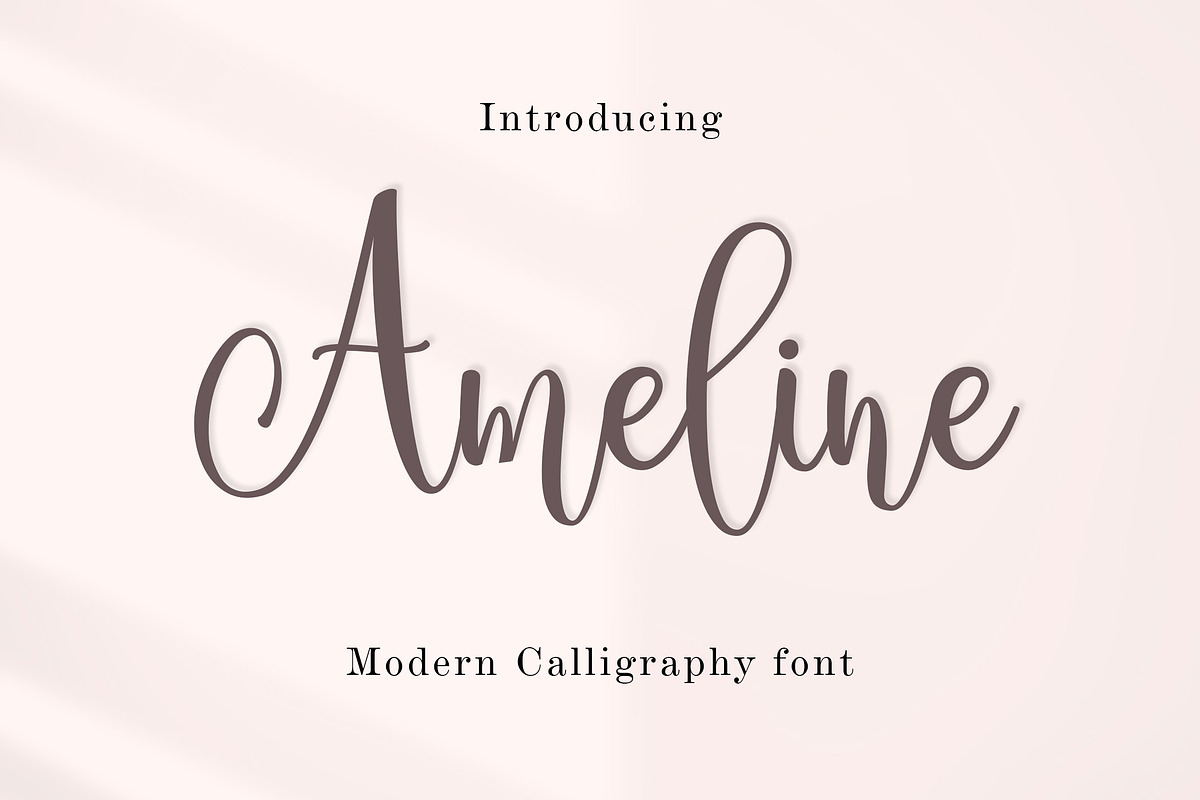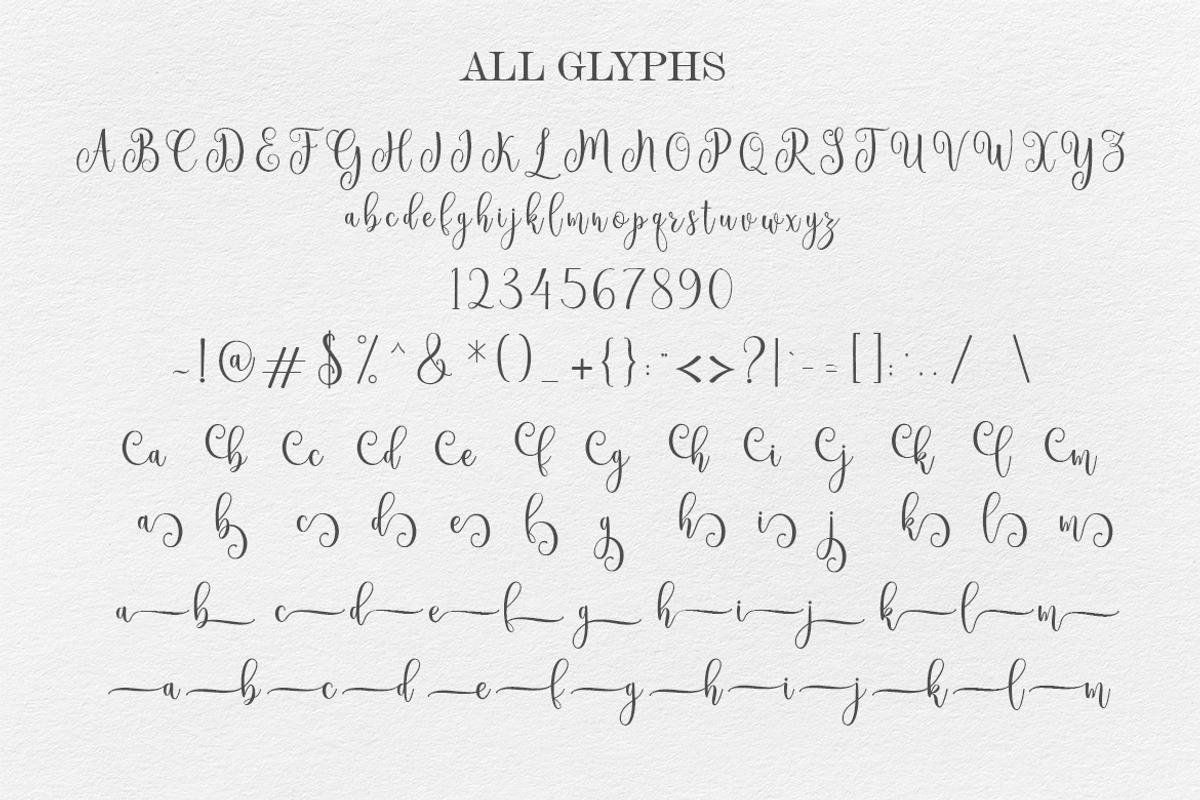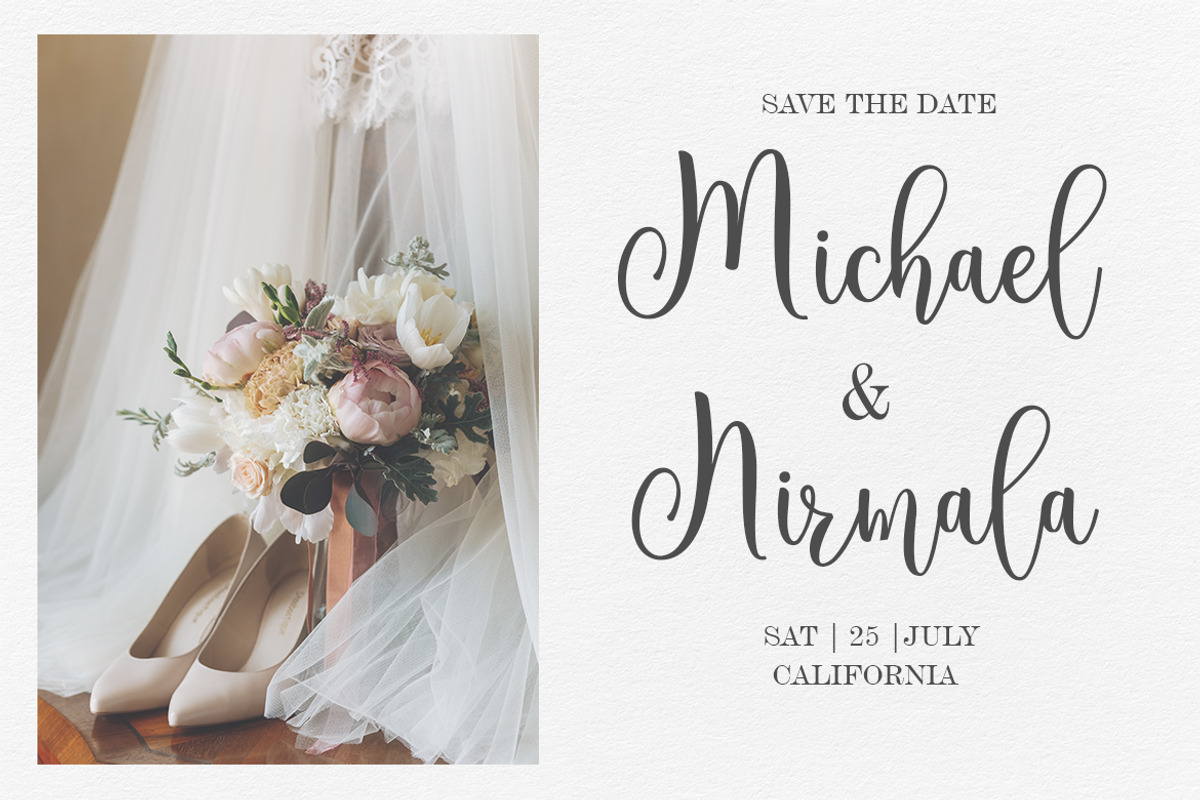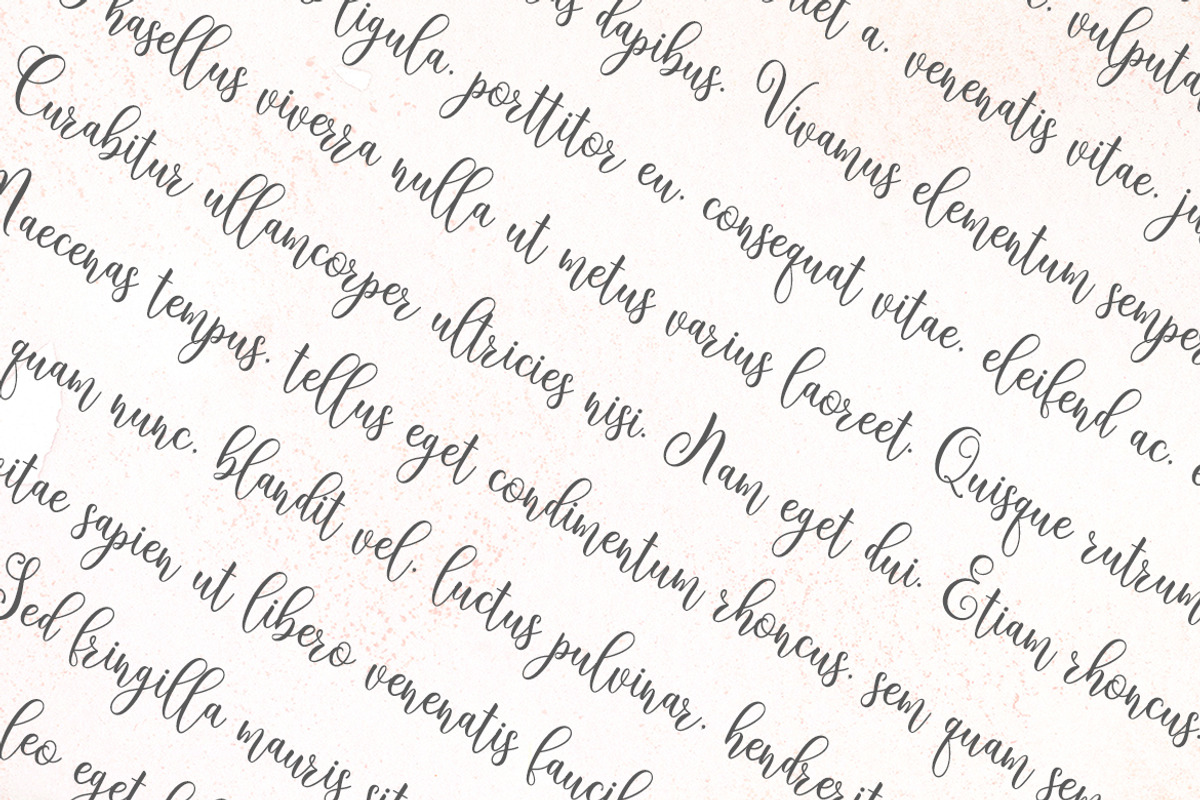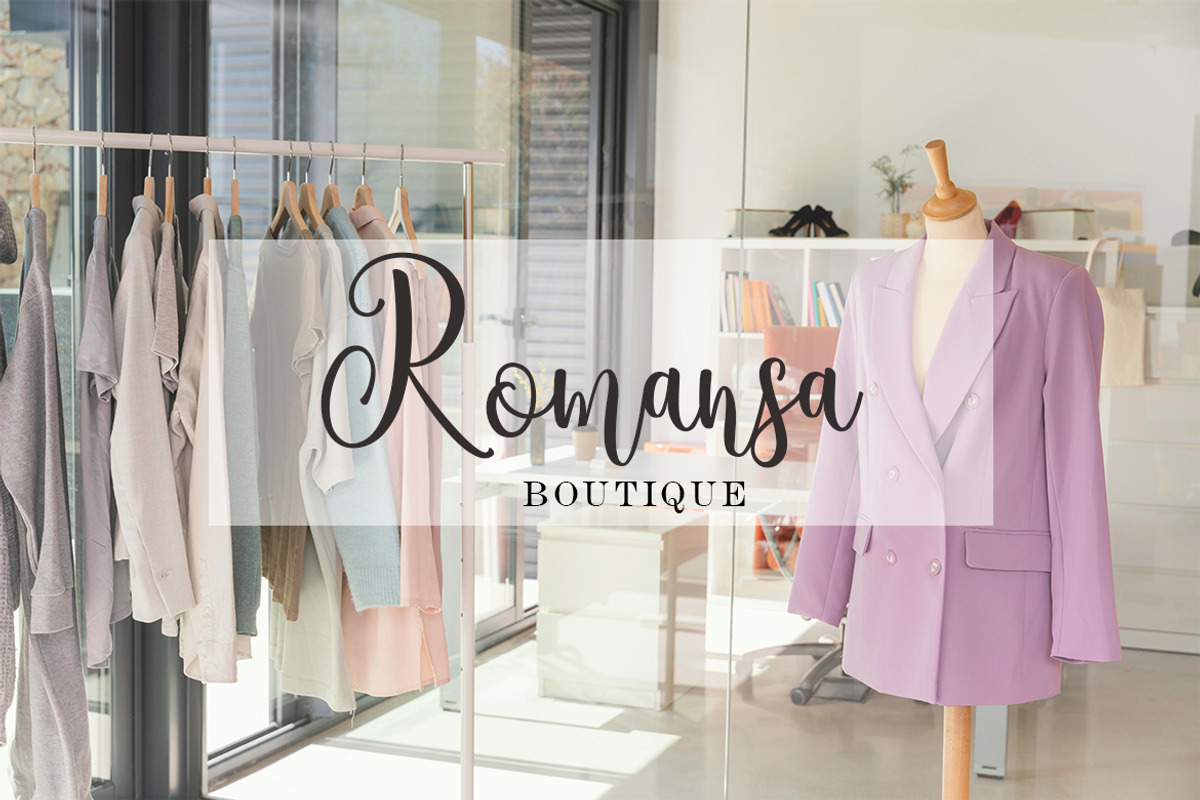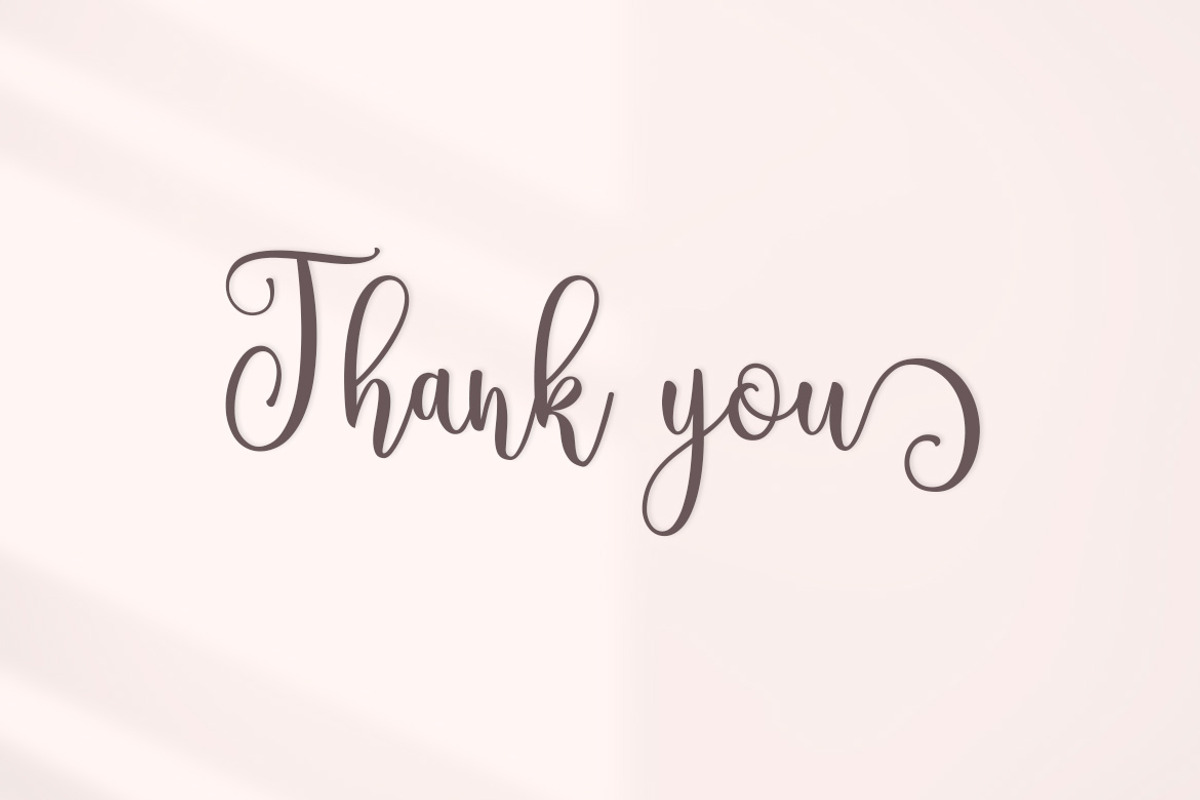
Ameline Script
Introducing Ameline, a beautifully refined font resonating sophistication and modern elegance. This graceful typeface showcases its delicacy through the thin, fluid strokes and softly curved contours of its letterforms. Ameline Script is a splendid choice for projects embodying a refined aesthetic, from stylish wedding invitations to chic branding designs and polished editorial layouts. Included files are Ameline.ttf and Ameline.otf, making it a versatile addition to your design toolbox.